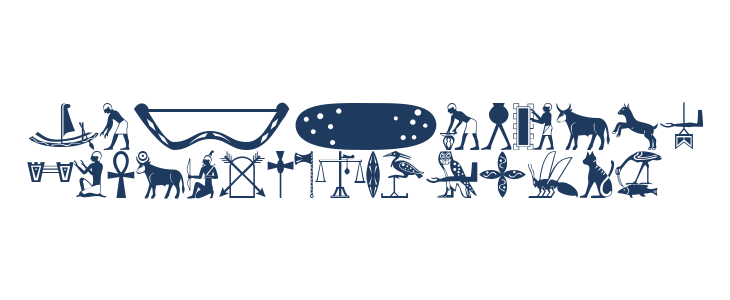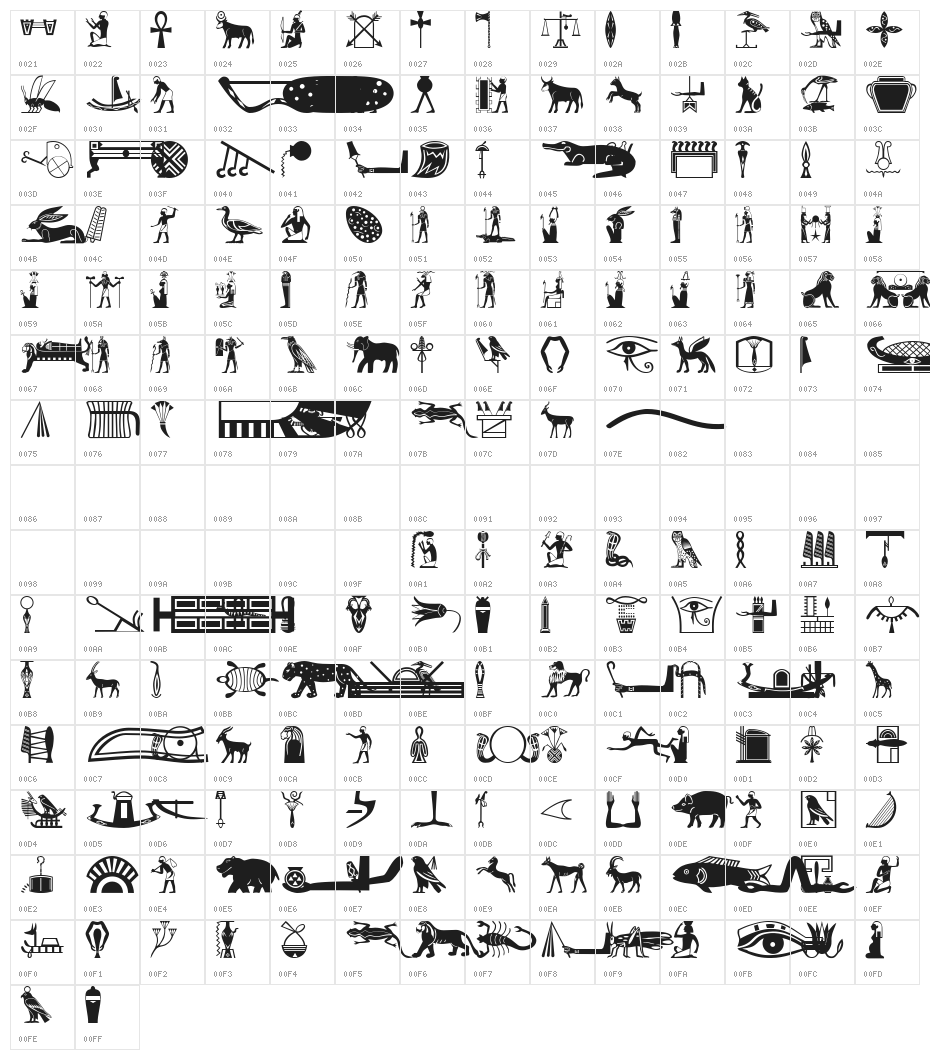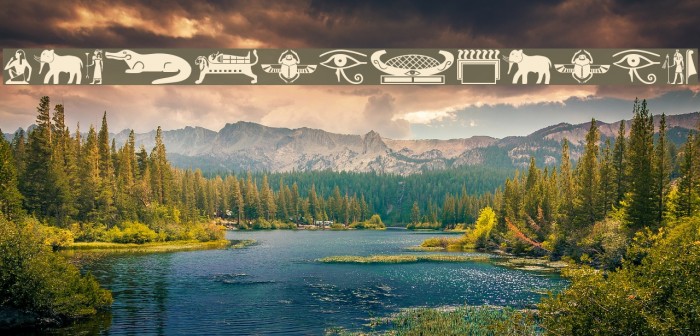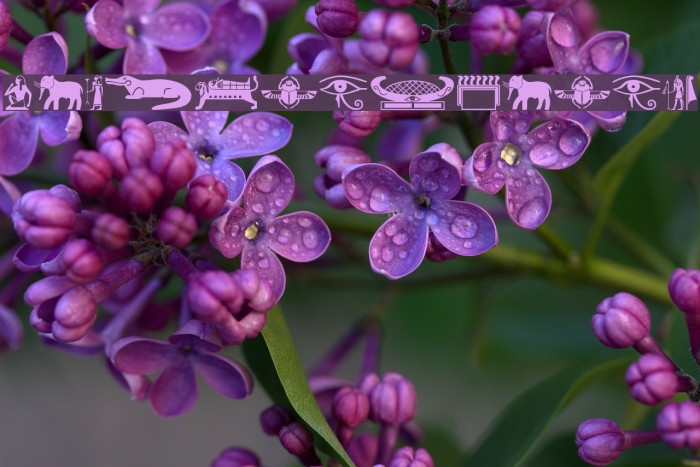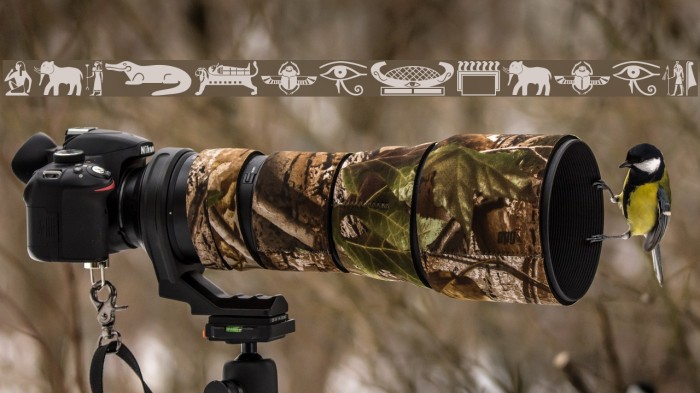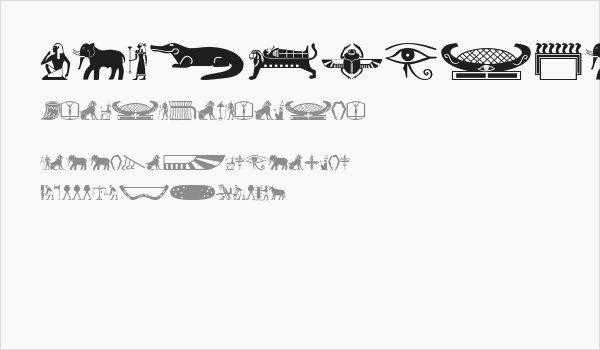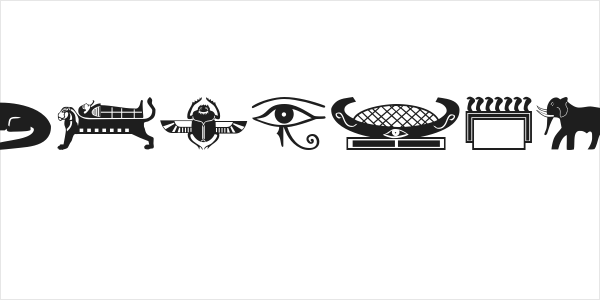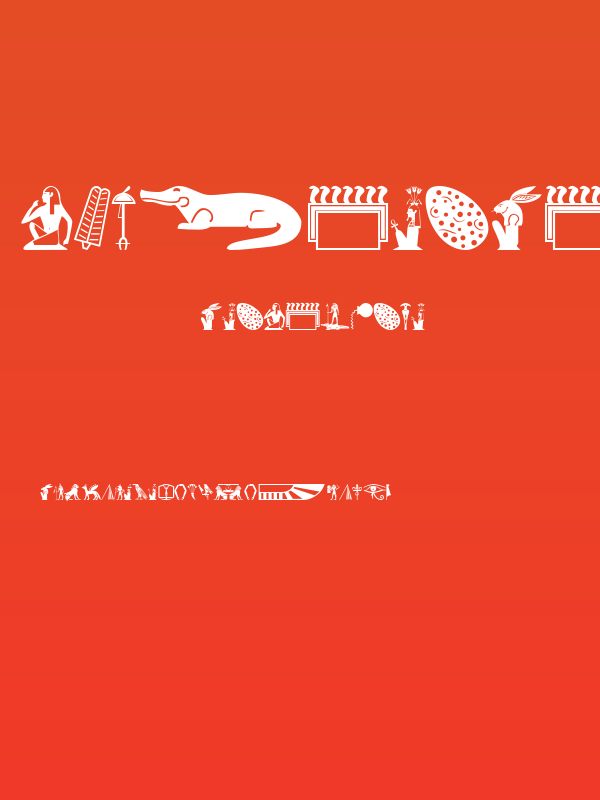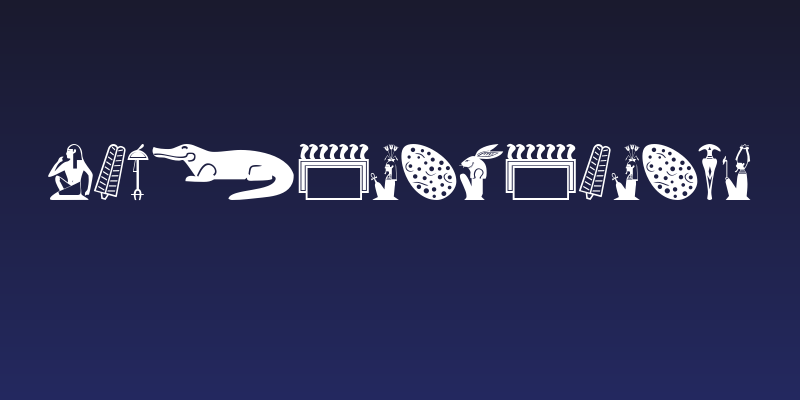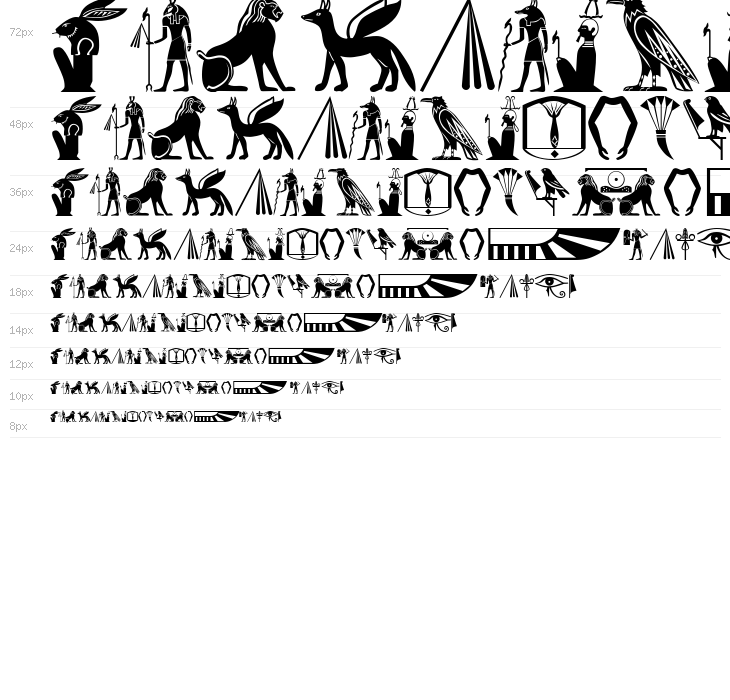
OldEgyptGlyphs Font
OldEgyptGlyphs Description
A decorative set of glyphs inspired by ancient Egyptian hieroglyphics, featuring intricate pictorial symbols including animals, people, and objects, rendered in bold black silhouettes with high detail and strong visual impact.
Overall StyleDecorative, Historical
Use CaseLogos, Headlines, Themed graphics, Display text
Proposed ProjectsHistorical displays, museum signage, themed posters, educational materials, escape room props, movie titles, and decorative art projects.